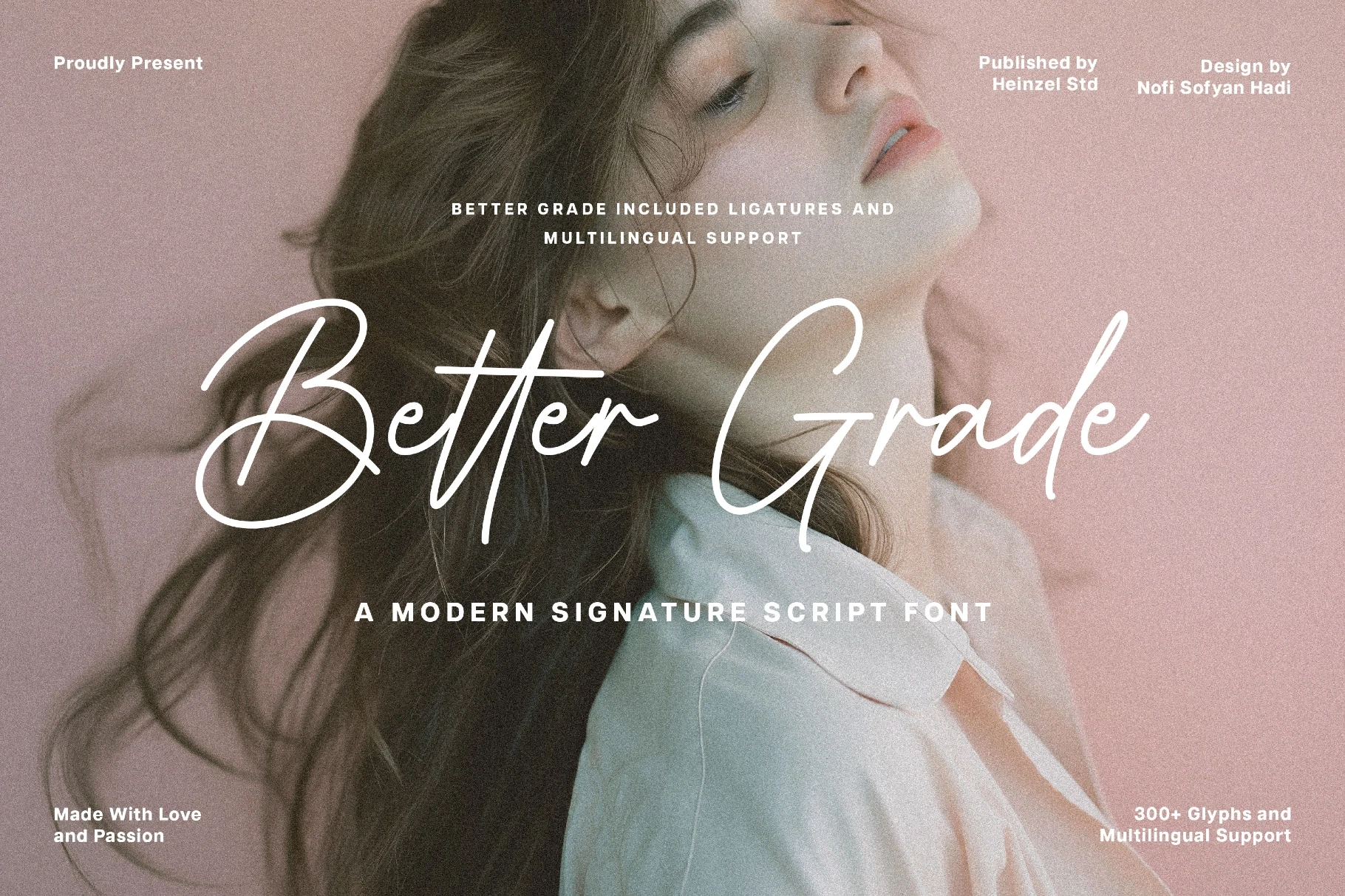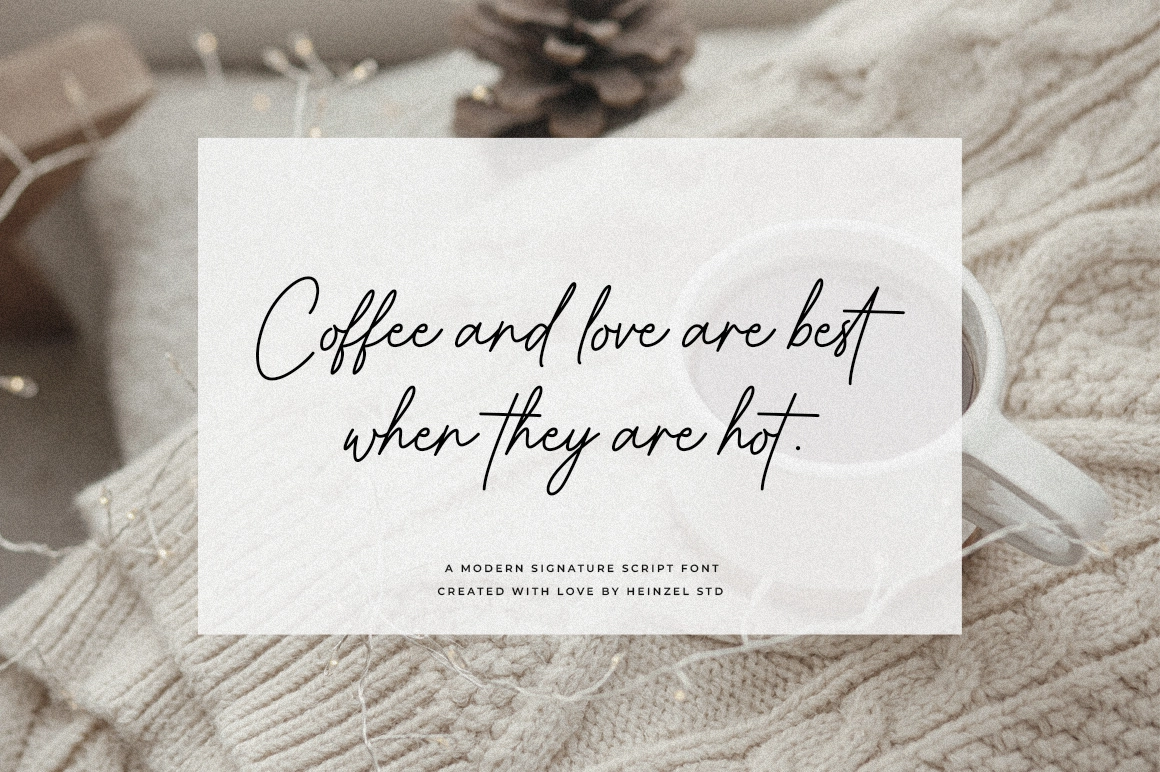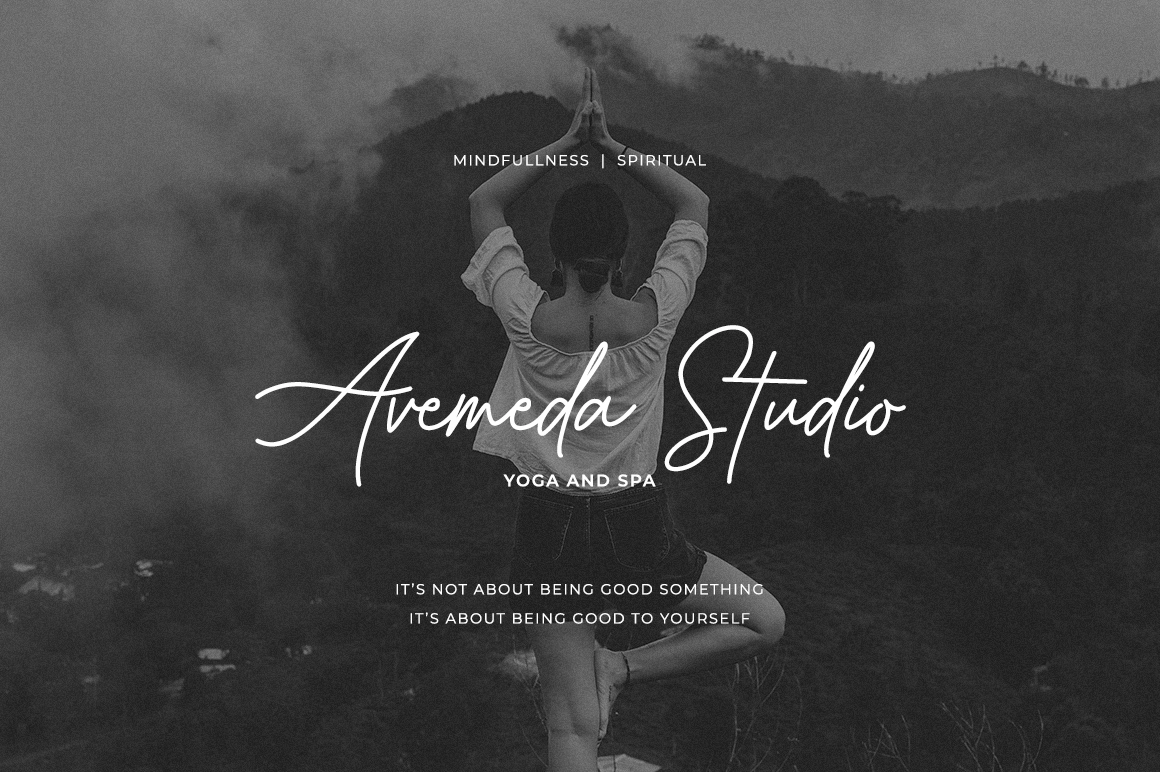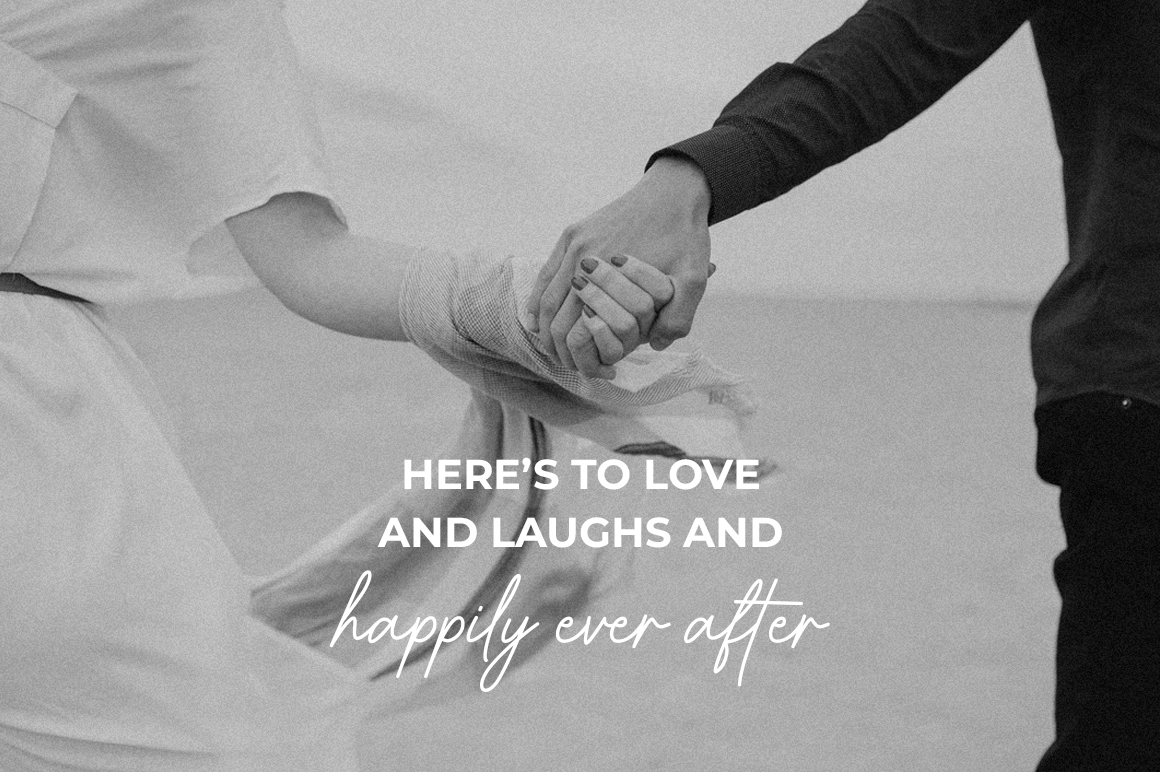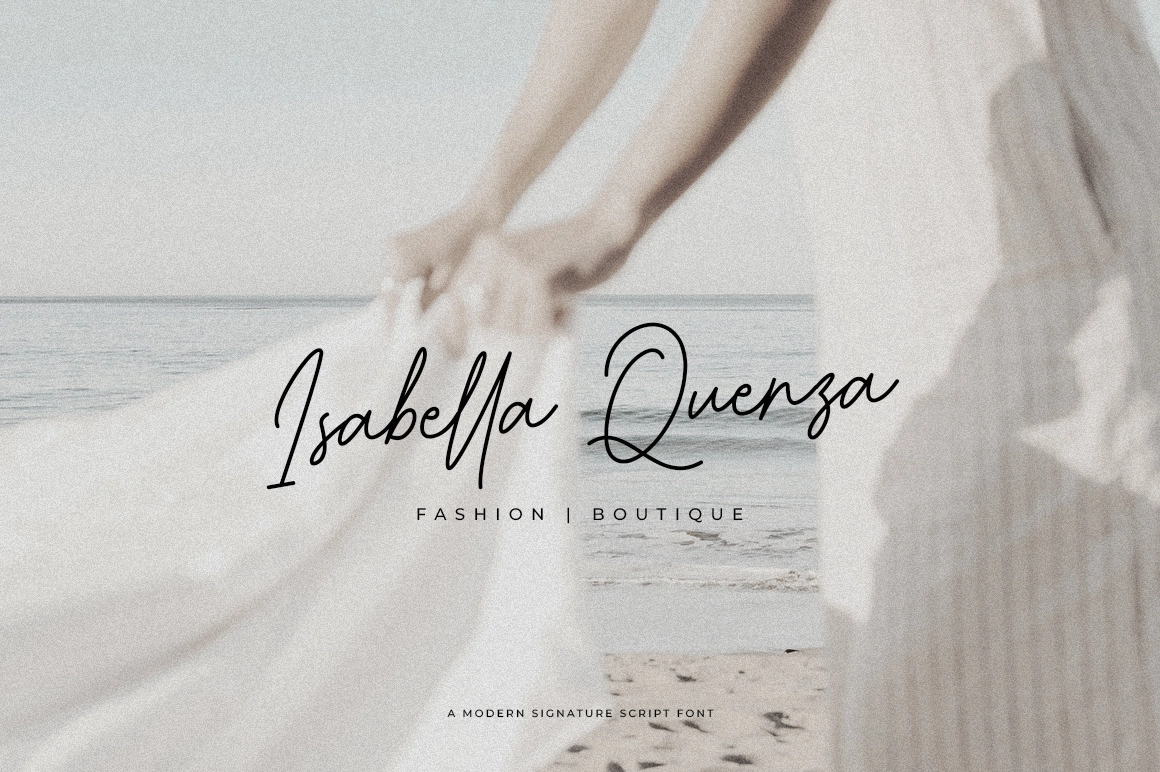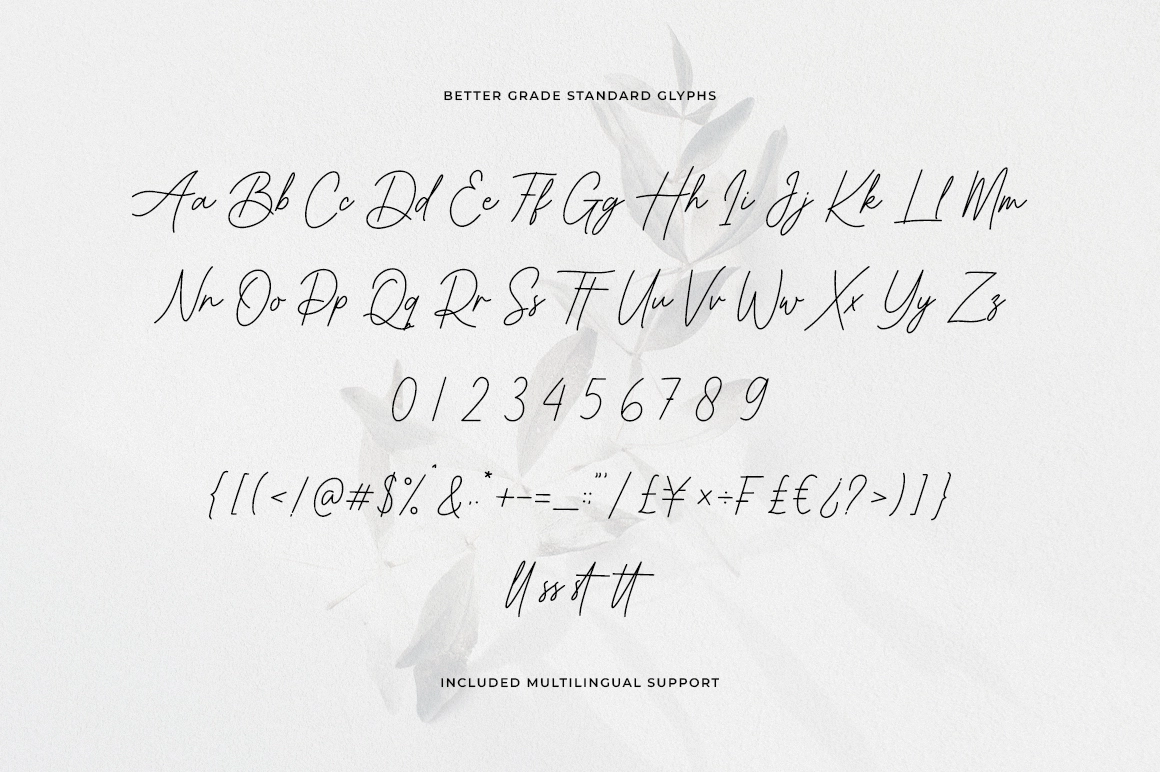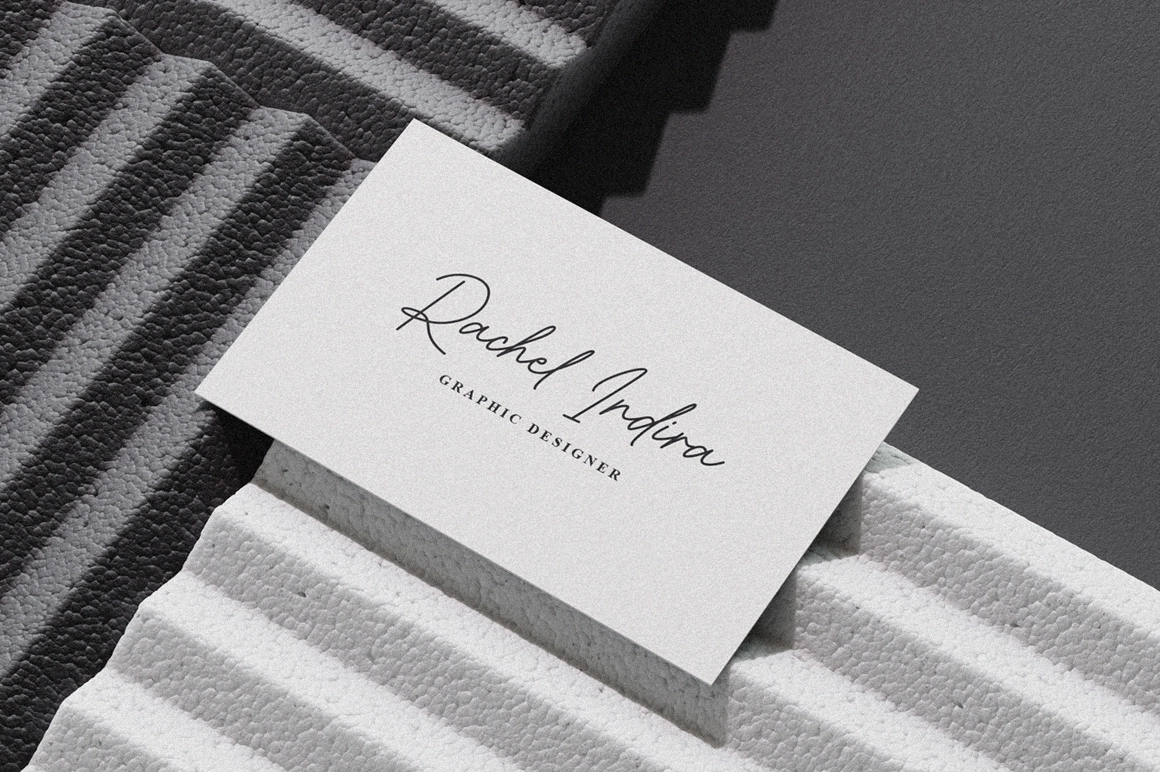
Better Grade - Elegant Signature Font
This signature script typeface has smooth handwritten strokes, natural connections , and a polished rhythm made for personal branding with a refined finish. Its long swashes, clean curves, and stylish ligatures create graceful wordmarks that look confident without turning stiff.
Better Grade is a strong choice for fashion logos, boutique identities, wedding invitations, photography watermarks, beauty packaging, social media quotes, product labels, editorial accents, stationery, personal brands, luxury campaigns, greeting cards, and more. The flowing letterforms keep names and short phrases expressive, while the multilingual support and broad glyph set make it practical for polished work.
• 300+ glyphs
• Standard glyphs
• Ligatures
• Numerals & Punctuation